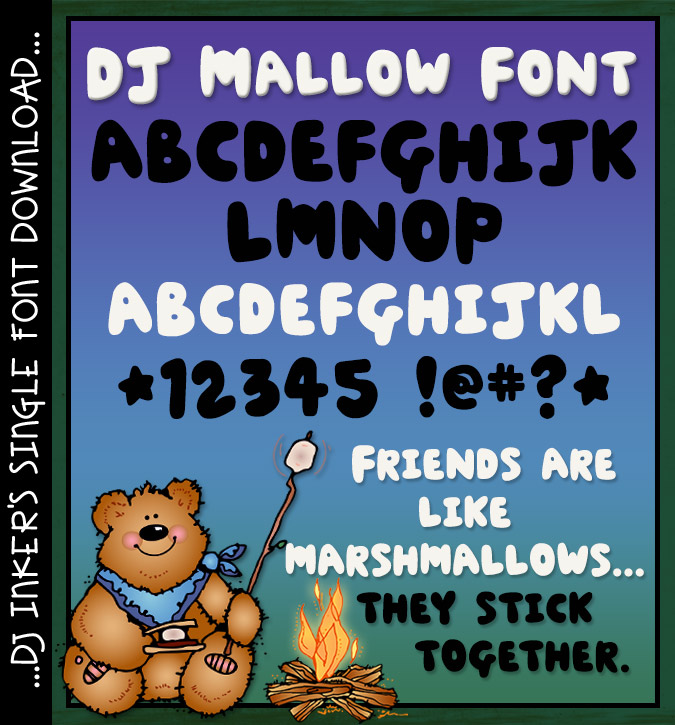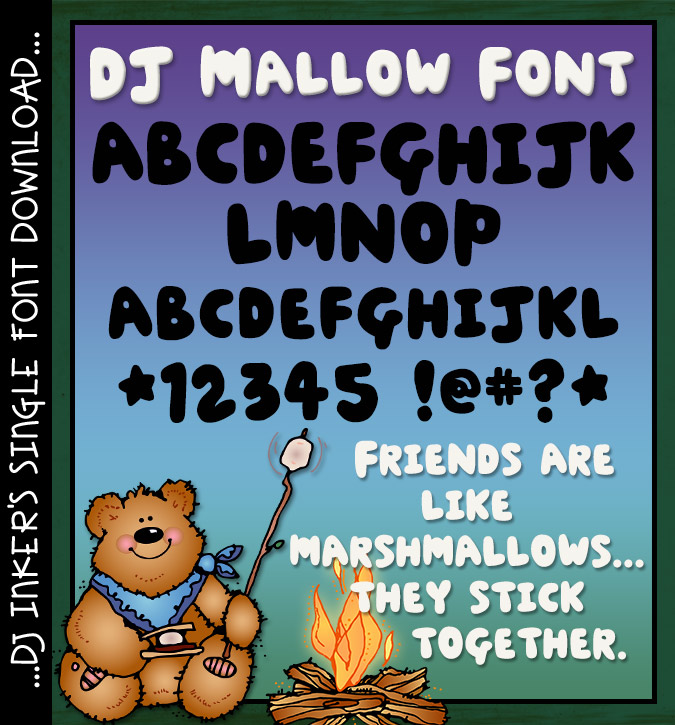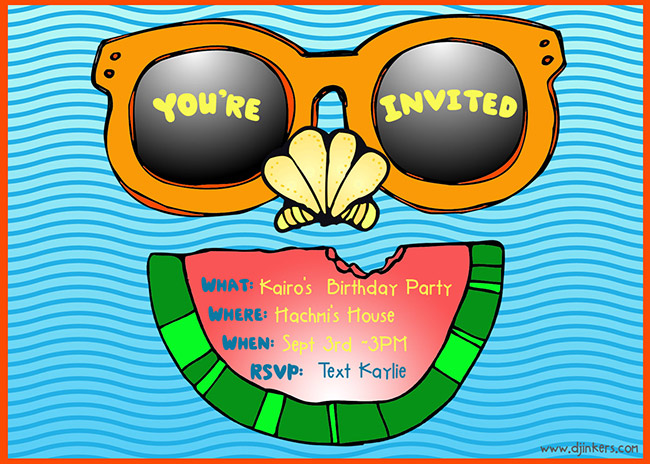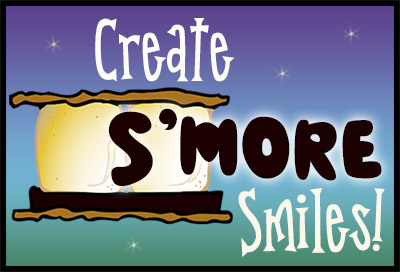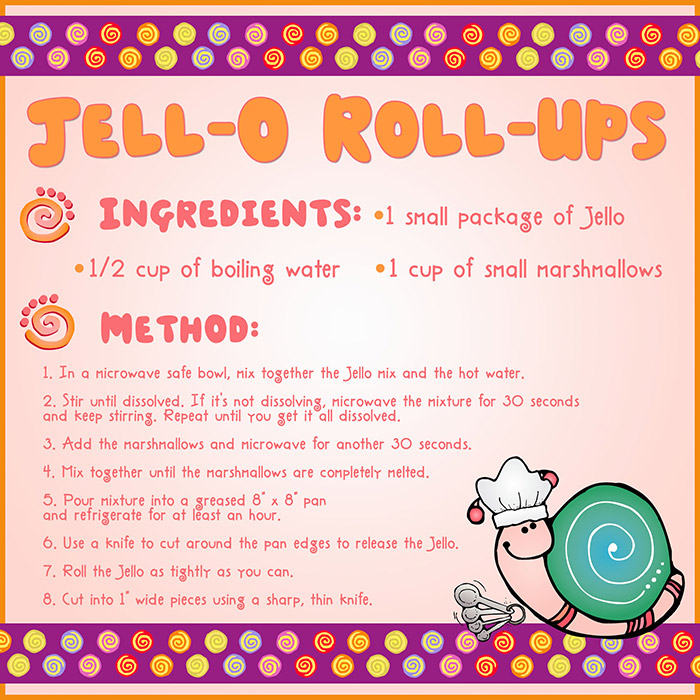
If you're looking for lettering that's deliciously cute, take a taste of our DJ Mallow font! This fun, fluffy font is bold, bubbly, and ready to type up something sweet. Perfect for kids' crafts, campouts, campfire nights, recipes, posters, and anywhere you want to share a smile.